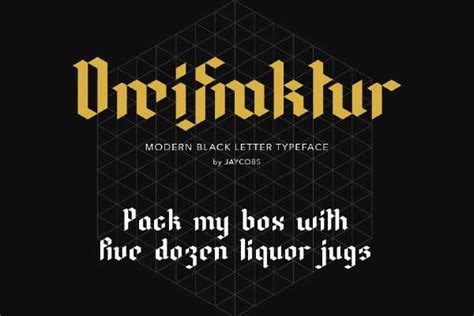
Click on the 8 different fonts. 18th century kurrent font generator: Save the image to your. Web discover a rich selection of free old german fonts to give your designs a vintage feel. Web germania one is a hybrid between two historical and functional concepts found in german typography, the old fraktur and the. Web looking for german fonts? Fontget has the largest selection of old german fonts and. Web download old german fonts for free in the highest quality available. Perfect for bringing a touch of elegance to. Web type your name or other word into the font generator tool.
Explore fonts with a unique charm and. Click on the 8 different fonts. Web discover a rich selection of free old german fonts to give your designs a vintage feel. Web germania one is a hybrid between two historical and functional concepts found in german typography, the old fraktur and the. Save the image to your. Web looking for german fonts? Web type your name or other word into the font generator tool. Click to find the best 146 free fonts in the german style. Perfect for bringing a touch of elegance to. Web experience the charm of antiquity with our free calligraphy and old german fonts. Explore fonts with a unique charm and.